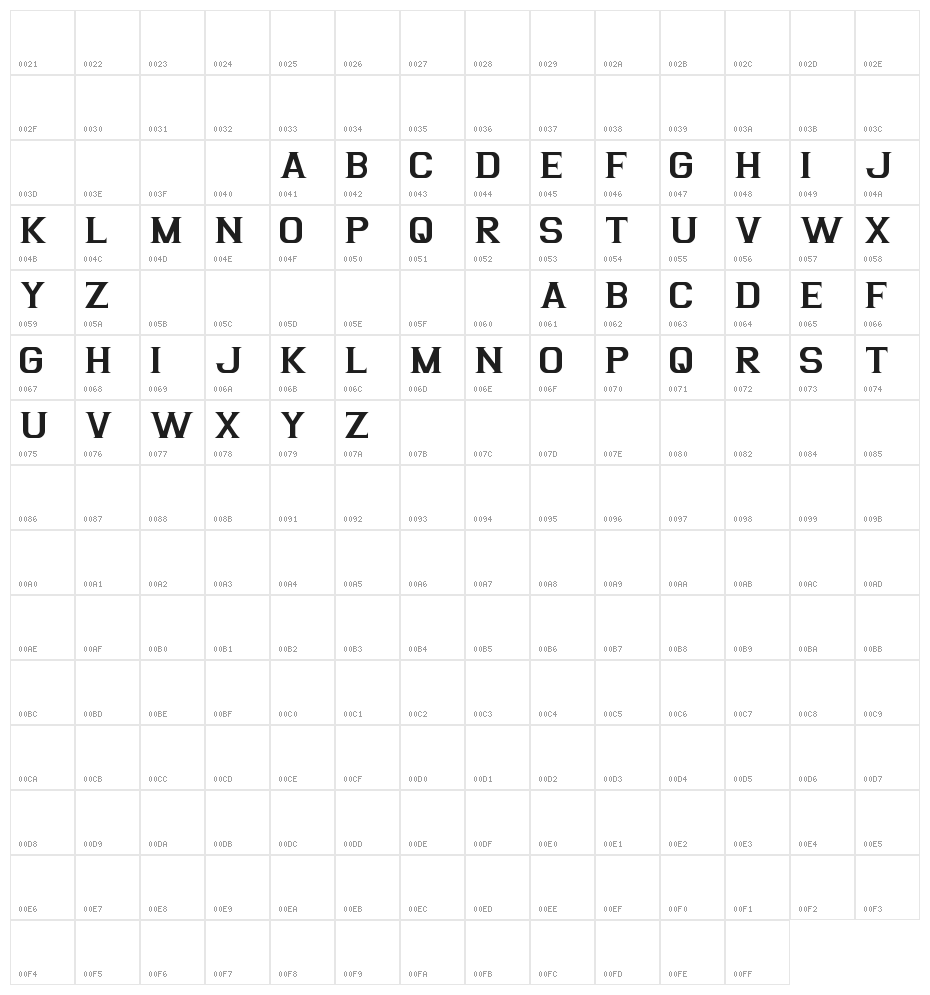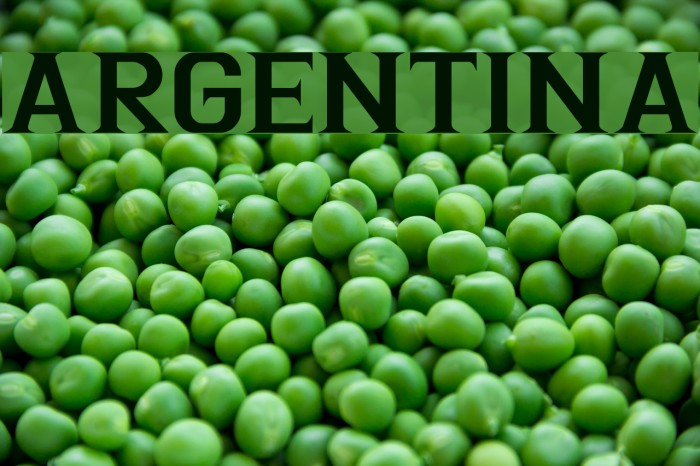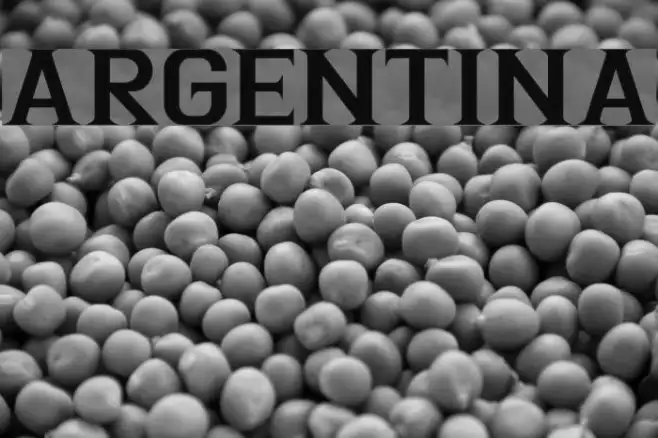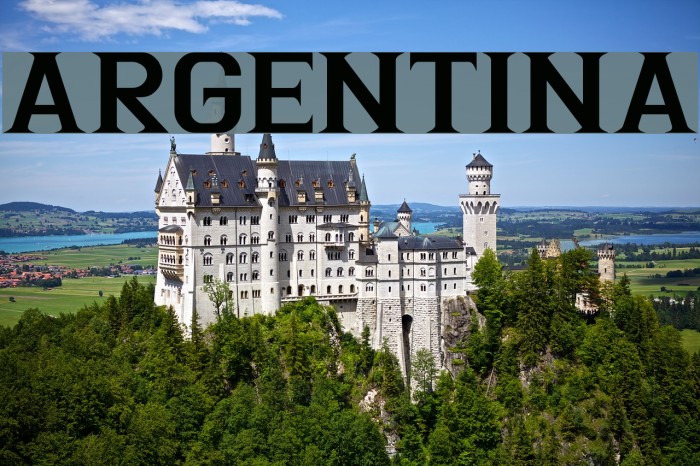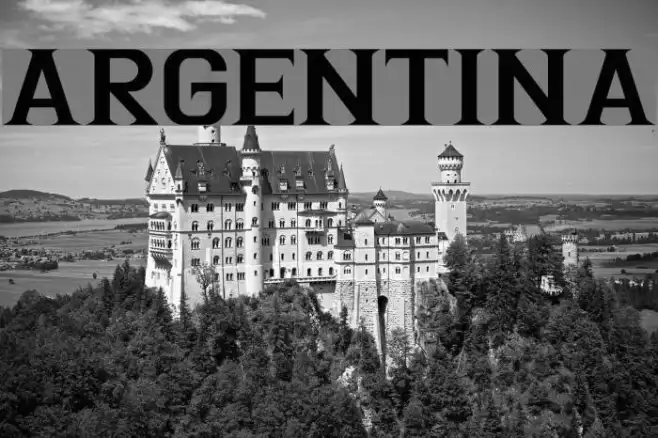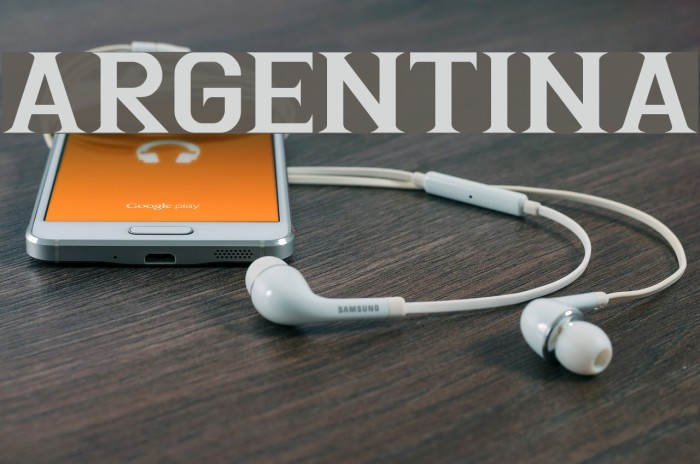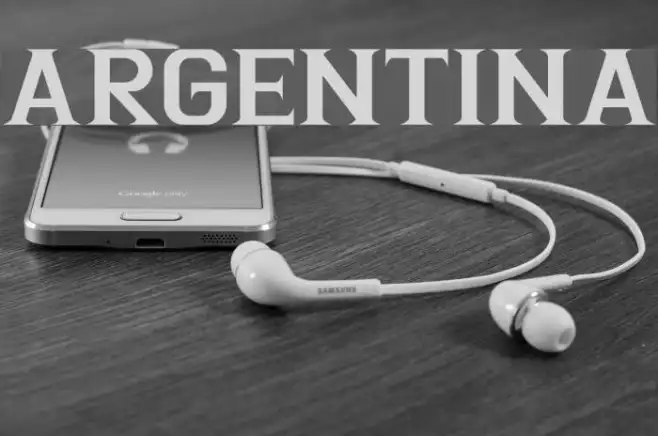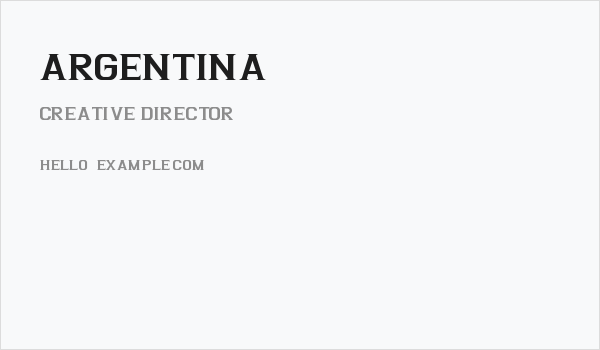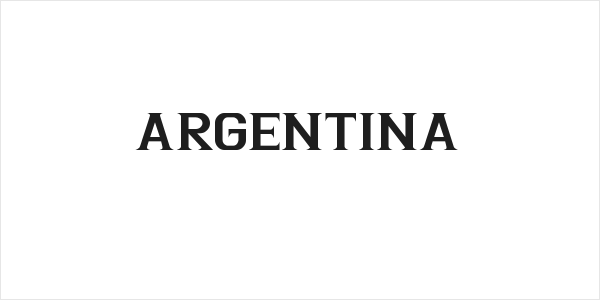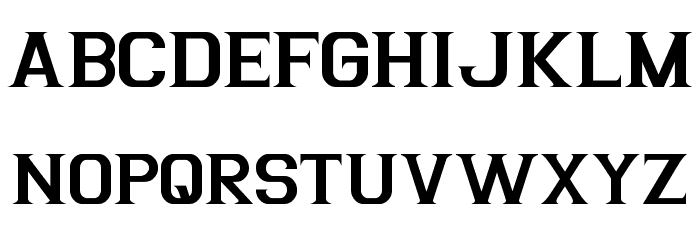
Argentina Font
Argentina Description
This font features a bold and striking design with strong, angular serifs that give it a commanding presence. The uppercase letters are uniformly structured, showcasing a blend of traditional serif elements with a modern twist. The strokes are consistent in width, providing a balanced and cohesive look. The overall appearance is both classic and contemporary, making it versatile for various design applications. The font's clean lines and sharp edges contribute to its readability, while the distinctive serifs add a touch of elegance and sophistication.
| Proposed Projects | Ideal for branding, headlines, posters, and editorial design where a strong and elegant presence is desired. |